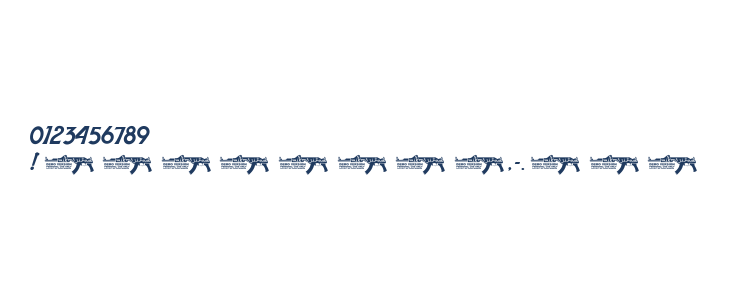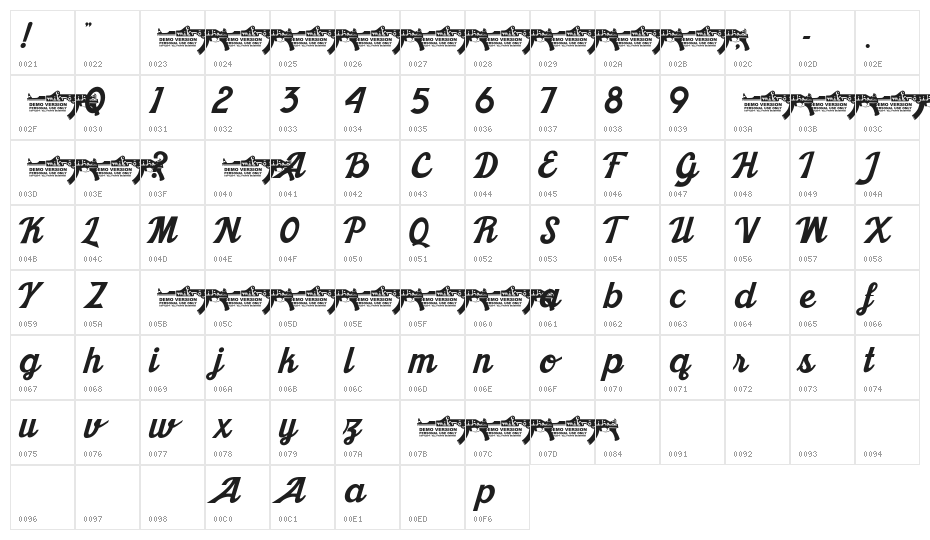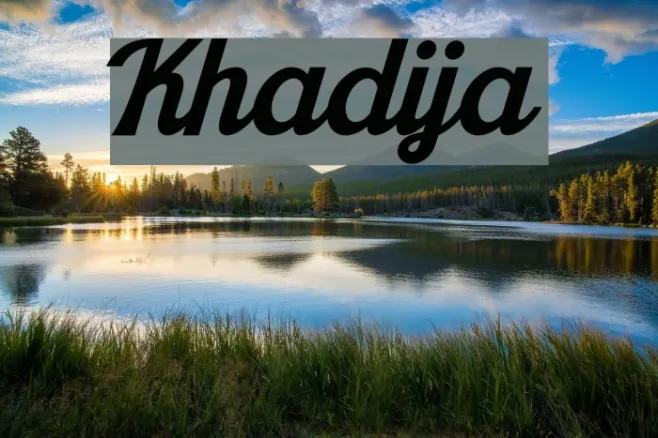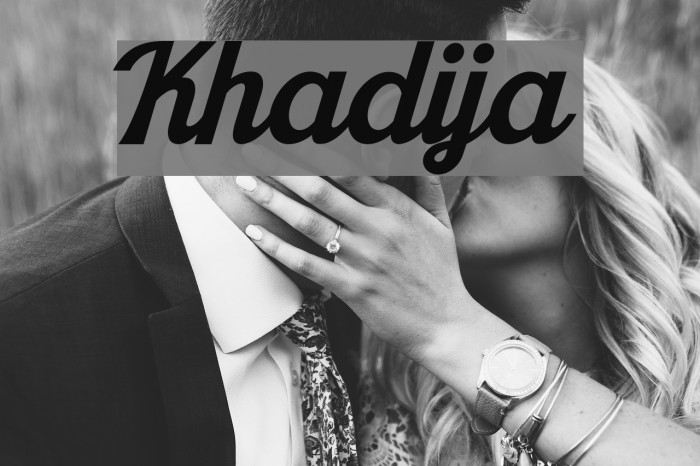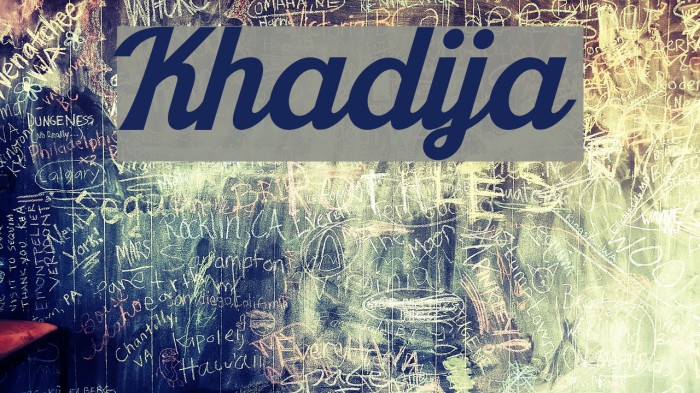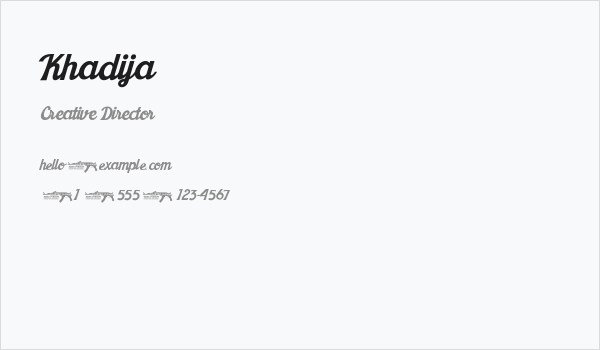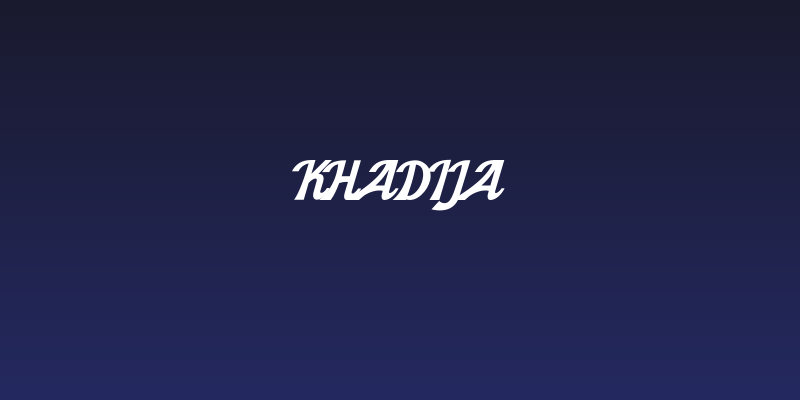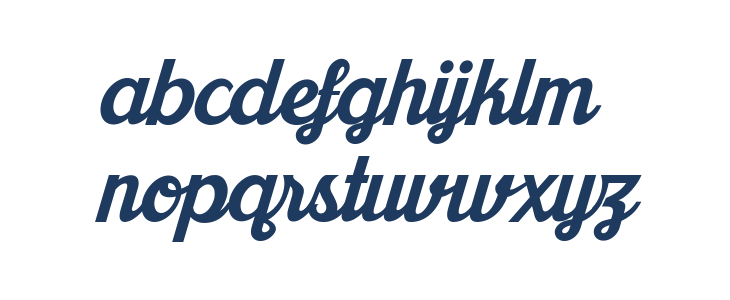
Khadija Font
Khadija Description
This font features a bold and dynamic script style with a strong presence. The letters are connected in a flowing manner, creating a sense of movement and elegance. The uppercase characters are slightly more angular, while the lowercase letters maintain a smooth, cursive appearance. The numerals are consistent with the overall style, offering a cohesive look. The special characters are uniquely designed, adding a decorative touch to the font. This font is ideal for projects that require a bold, expressive typeface with a touch of sophistication.